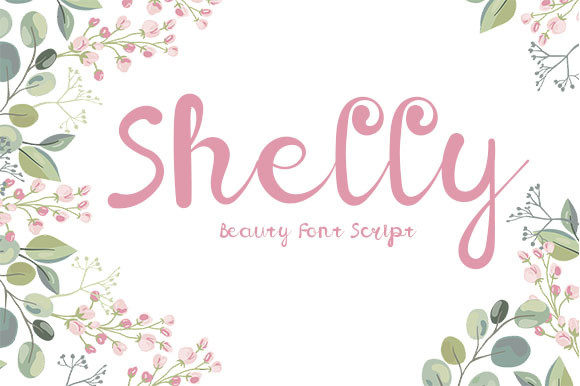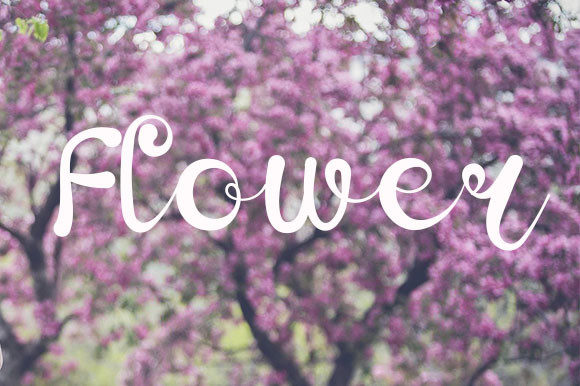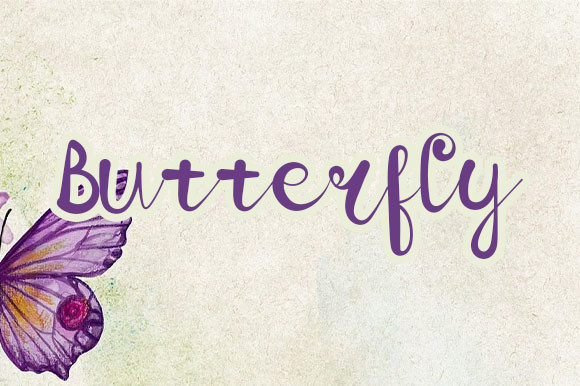
HomePersonal Use FreeShelly Personal Use Free Shelly FacebookTwitterPinterestWhatsApp 1 of 3 About Shelly Font Shelly is a chic, refined script font that emanates sophistication and elegance. Its stylish alternates and ligatures make this font the perfect match for any project. DOWNLOAD NOW People also explored Yemila Font Blaster Font The Attention Font Cotton Candy Font Alone Jingle Joy Font Zlatan Extra Black Font Coconut Island Font Rivina Pen 204 0 TagsBrushelly Brush FontDiana and Shelly Font Previous articleManhattanNext articleParty Pooper LEAVE A REPLY Cancel reply Comment: Please enter your comment! Name:* Please enter your name here Email:* You have entered an incorrect email address! Please enter your email address here Website: Save my name, email, and website in this browser for the next time I comment. Personal Use Free Dacquoise Personal Use Free Read more about this font Strings Personal Use Free Read more about this font Omellia Personal Use Free Read more about this font The Pottery Personal Use Free Read more about this font BLOG Free Fonts Risk: Why Free Fonts Can Be Dangerous for Designers Free Fonts Risk: Why Free Fonts Can Be Dangerous for Designers Using free fonts is a common practice in web and graphic design. However, the... Transform Your Website: Elevate Your Typography with 7 Best Web Font Generators Using Fonts in Digital Marketing: Tips to Strengthen Your Brand Identity Best Fonts for T-Shirt Design – Top 2025 Picks